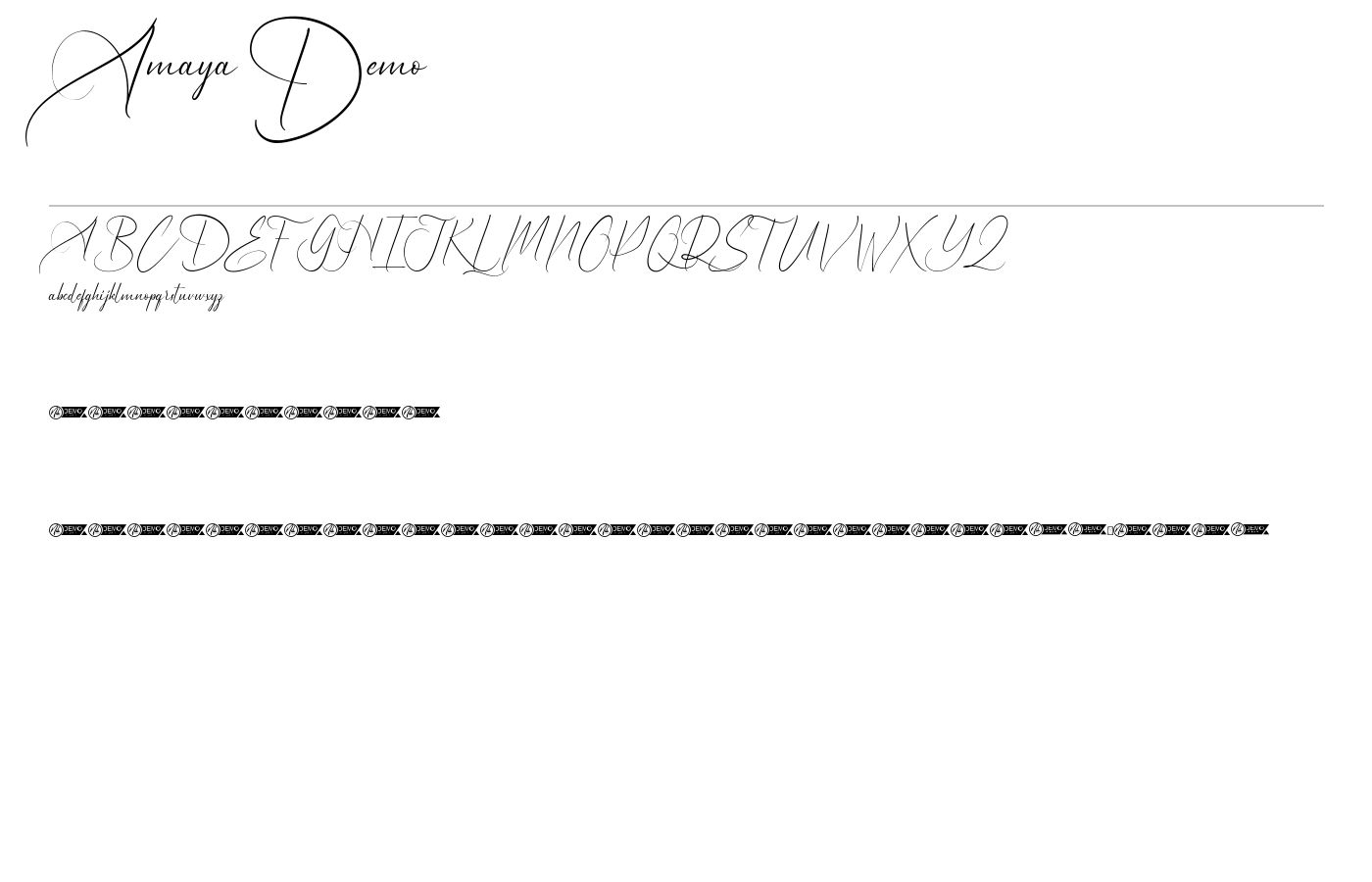
Amaya Demo is an elegant, thin script font featuring delicate, flowing lines with a handwritten cursive style that exudes sophistication and grace. Its high-contrast strokes and refined letterforms make it perfect for luxury branding, wedding invitations, and high-end editorial designs where a stylish, personal touch is desired. This font works wonderfully in display settings where its fine details and airy structure can truly shine.
Amaya Demo Font
About Amaya Demo Font
| Font family | Amaya Demo Font |